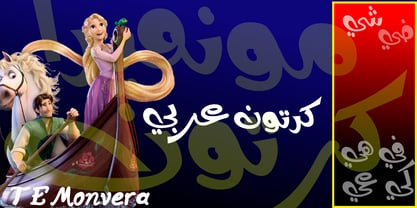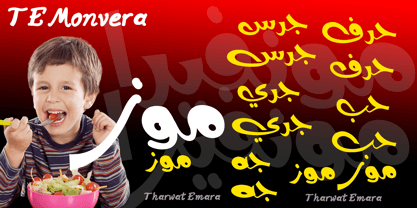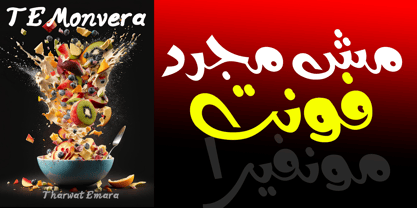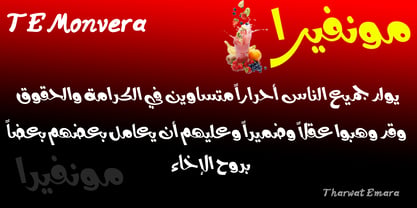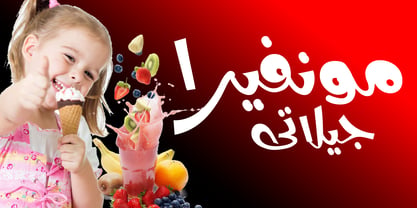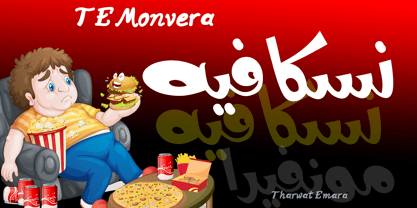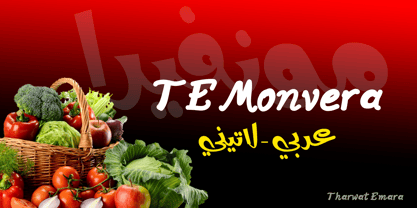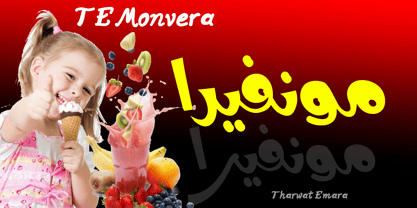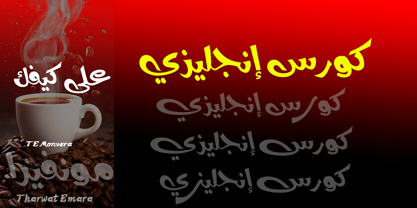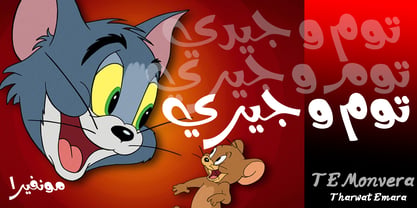
TE Monvera 2
by Tharwat Emara
The TE Monvera 2 Font Family was designed by Tharwat Mohamed Emara and published by Tharwat Emara. TE Monvera 2 contains 1 styles. More about this family
The second release of Monvera is a refined evolution that enhances the overall visual balance, consistency, and usability of the typeface.
This update focuses on improving spacing, proportions, and the structural harmony between Arabic and Latin scripts, resulting in a more polished and cohesive typographic experience across all sizes and applications.
Monvera continues to evolve as a modern multilingual type system designed for designers who need both expressive personality and clean contemporary structure in one unified font family.
Improvements
Enhanced Arabic–Latin visual balance
Improved spacing and rhythm
Better clarity in large display usage
More consistent typographic structure
Smoother overall visual flow
Language Support
Multilingual typography
Bilingual design systems
Monvera is a modern typographic system created to give brands and designers a distinctive visual presence that blends modernity with expressive identity.